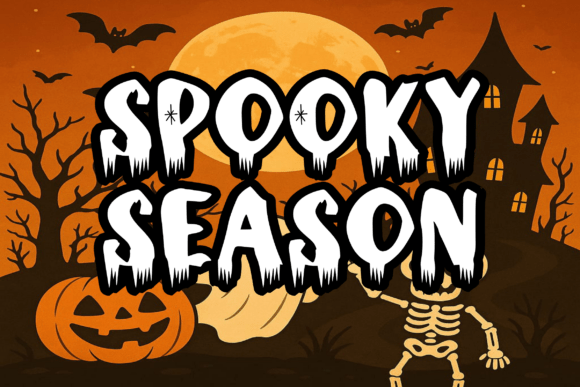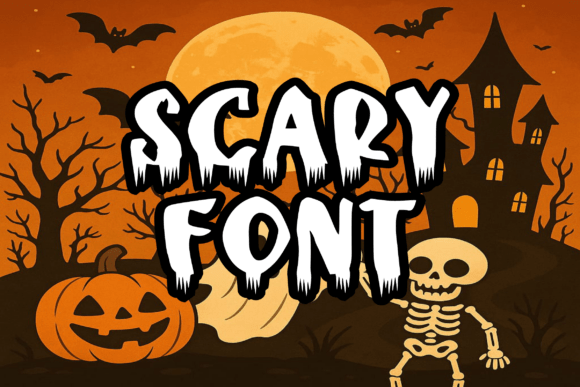
Unveiling “Halloween” – A Spine-Chilling Font to Cast a Spell on Your Designs
As the spookiest time of the year approaches, we’re excited to introduce “Halloween,” a font that’s sure to send shivers down the spines of designers and crafters alike. This unique typeface is carefully crafted to capture the eerie essence of Halloween, making it the perfect addition to your design toolkit.
The Inspiration Behind “Halloween”
Our team of font enthusiasts and designers worked tirelessly to create a font that would embody the thrill and excitement of Halloween. Every character in the “Halloween” font is infused with an uncanny charm, making it instantly recognizable. From the twisted serifs to the haunting letterforms, each element is designed to evoke the spooky spirit of the holiday.
Whether you’re a designer, crafter, or DIY enthusiast, “Halloween” offers endless possibilities for creative expression. Use it to create:
- Eerie Invitations: Set the tone for your Halloween party with custom invitations that feature the “Halloween” font.
- Spine-Chilling Merchandise: Add a touch of horror to your t-shirts, hoodies, and accessories with this unique font.
- Haunting Home Decor: Use “Halloween” to create custom labels, signs, and decorations for your home.
- Unforgettable Comics and Animations: Bring your comic books, animations, and stories to life with a font that’s sure to capture the imagination of your audience.
What Sets “Halloween” Apart
In a world where fonts are a dime a dozen, “Halloween” stands out from the crowd. Here are just a few reasons why:
- Unique Character Design: Each character in the “Halloween” font is carefully crafted to evoke the spooky spirit of the holiday.
- Attention-Grabbing: The “Halloween” font is sure to capture attention and ignite imagination, making it perfect for designs that need to stand out.
- Versatile: Use “Halloween” for a wide range of design projects, from digital to print.
In conclusion, “Halloween” is more than just a font – it’s an experience. It’s a chance to tap into the spooky spirit of the holiday and create designs that will leave a lasting impression. With its unique character design, attention-grabbing style, and versatility, “Halloween” is the perfect addition to your design toolkit. So why wait? Download “Halloween” today and start creating designs that will haunt your audience long after the holiday is over.